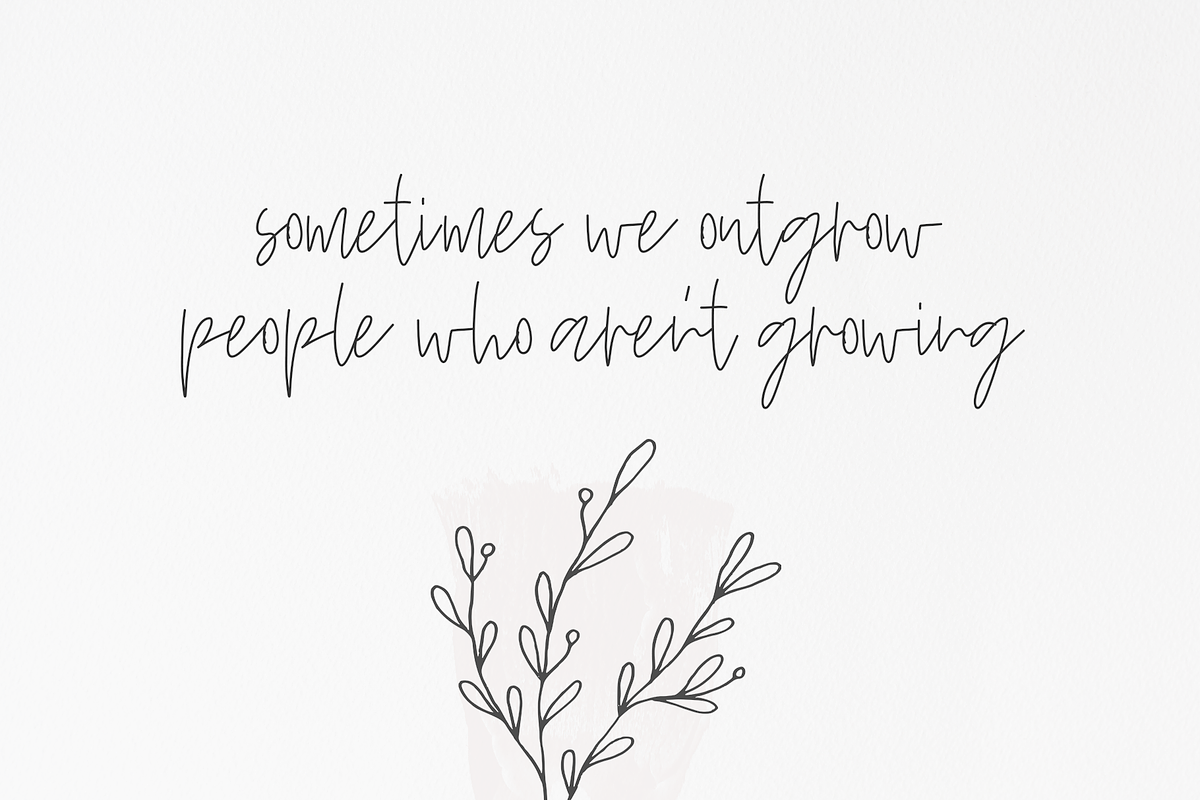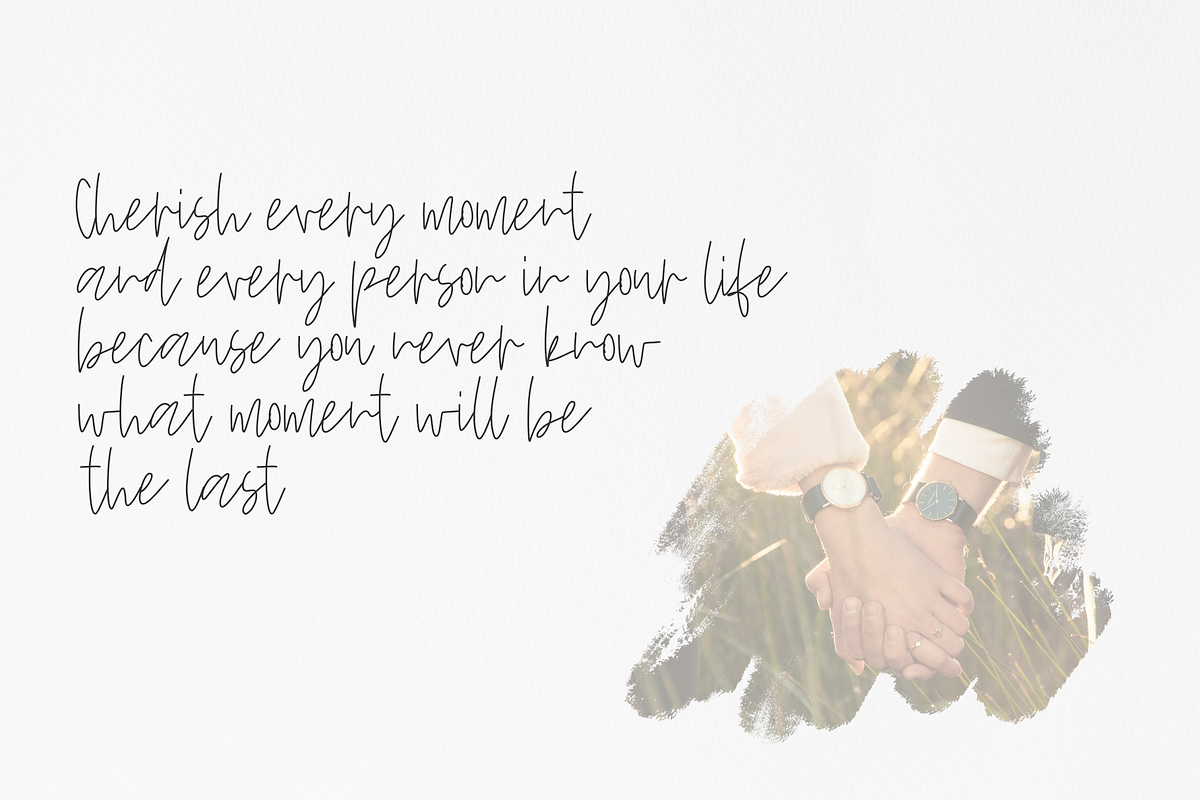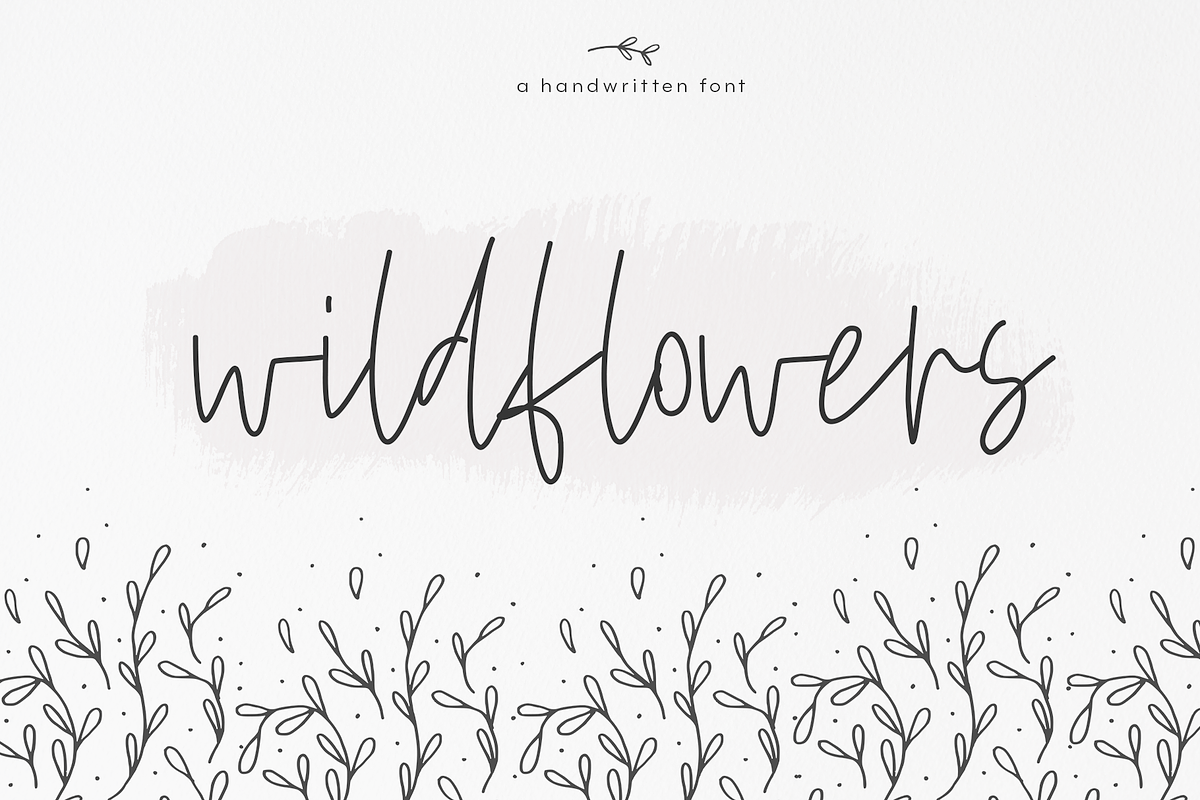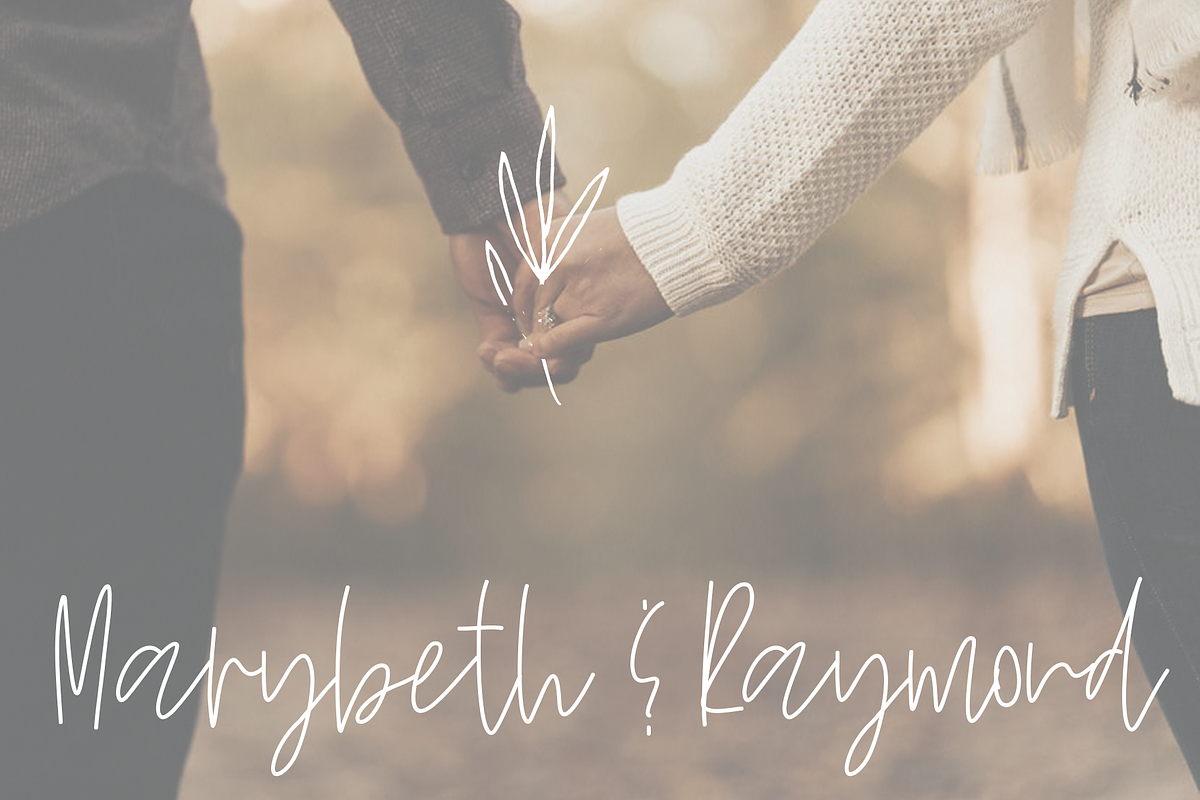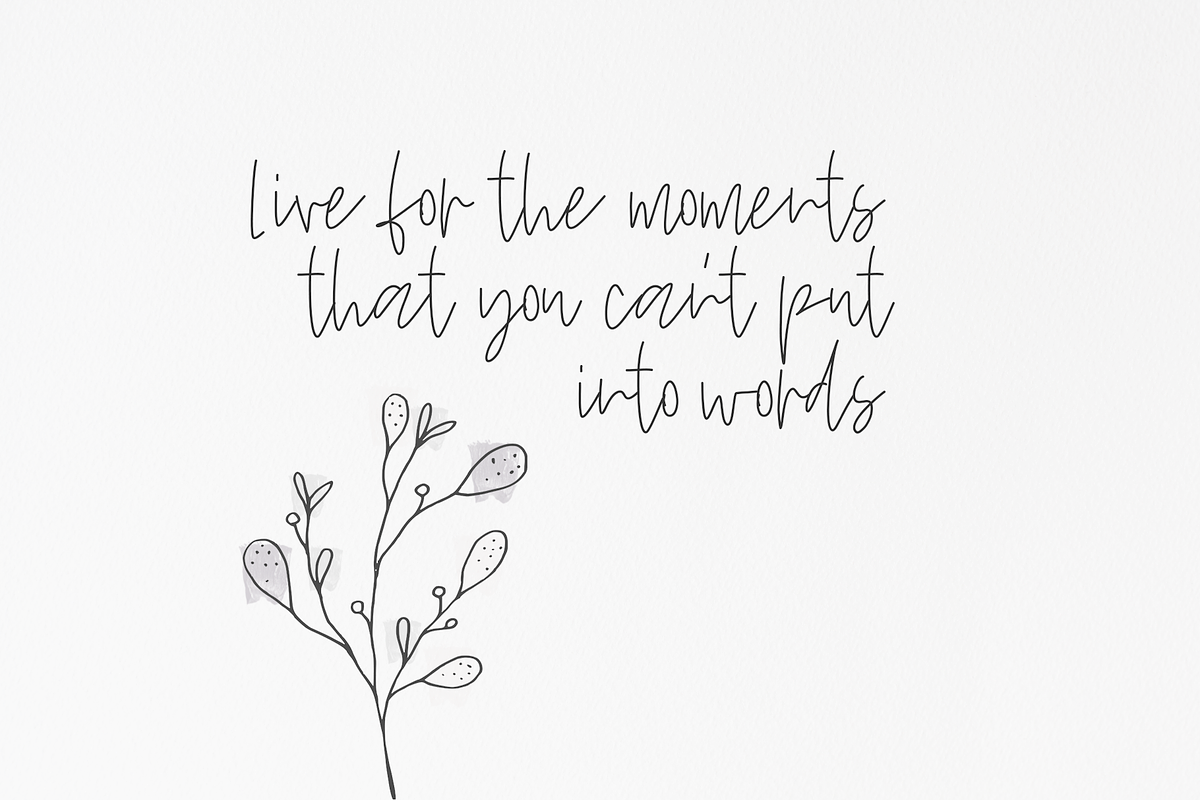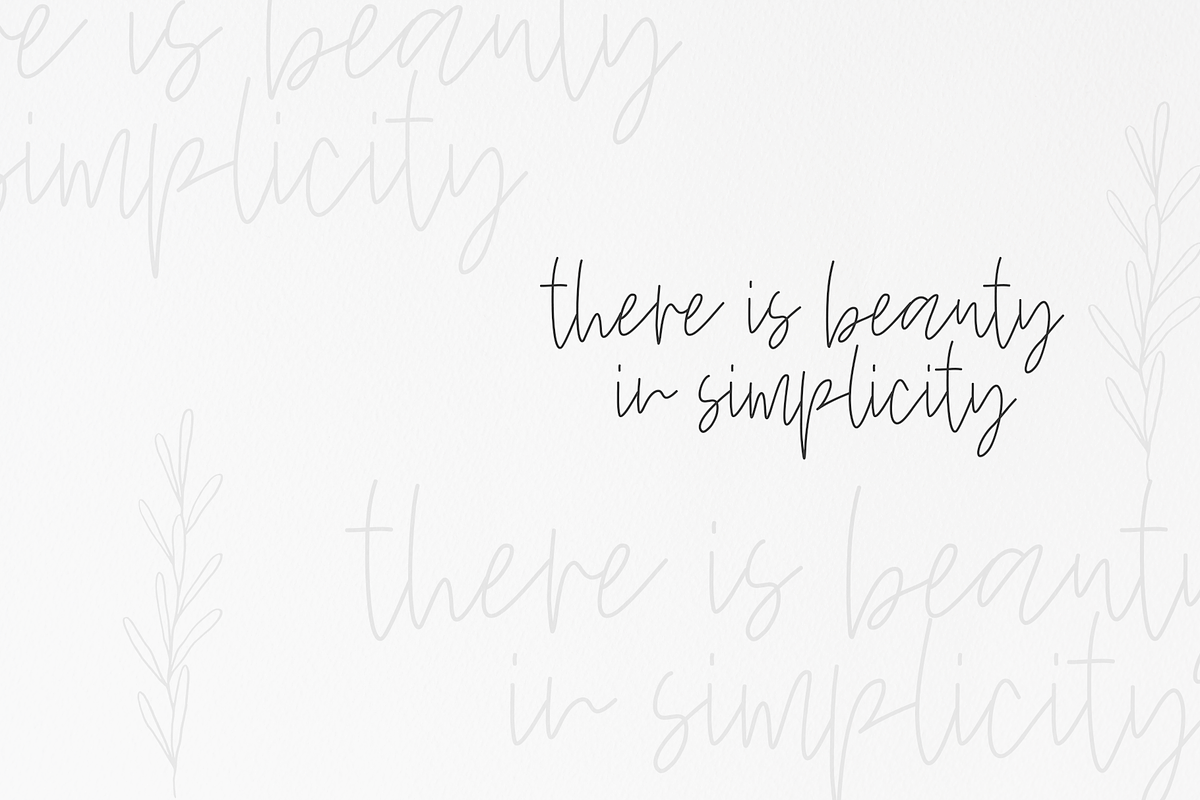
Wildflowers - A Handwritten Font
Wildflowersis a handwritten script font.
This font is perfect for quotes, headings, blogs, logos, invitations and more!
Wildflowers - A Handwritten Font by KA Designs fits naturally into Branding, posters, packaging, typography.